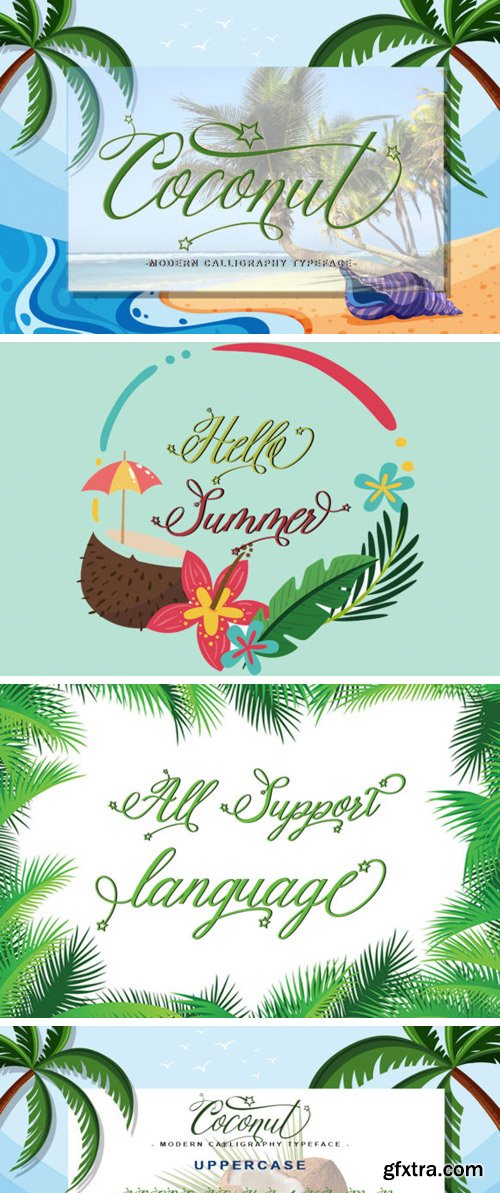
Coconut Font
The Coconut is an amazing modern calligraphy font. It was made with perfect precision for every single curve that was build with a horizontal and vertical path.